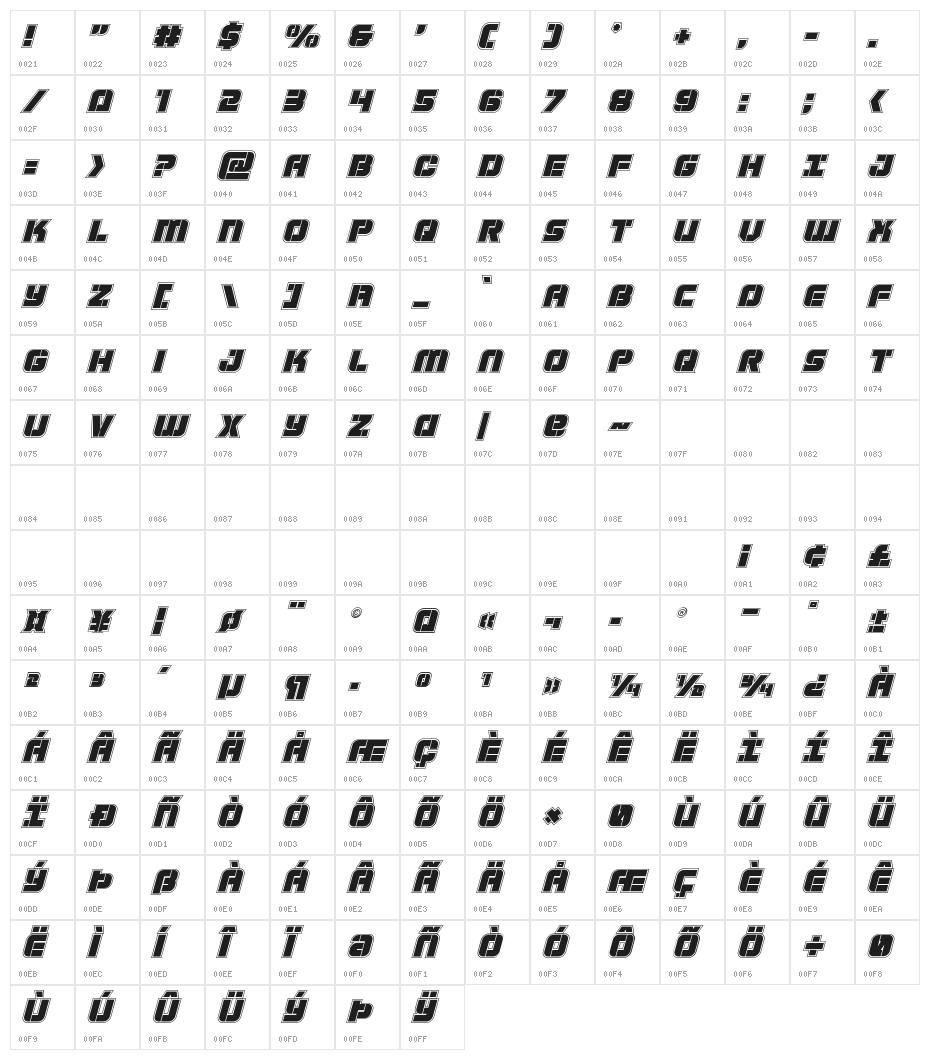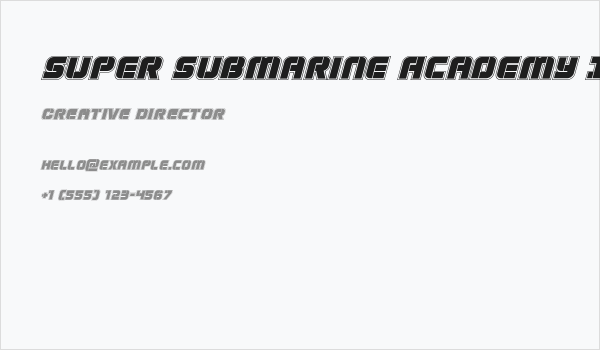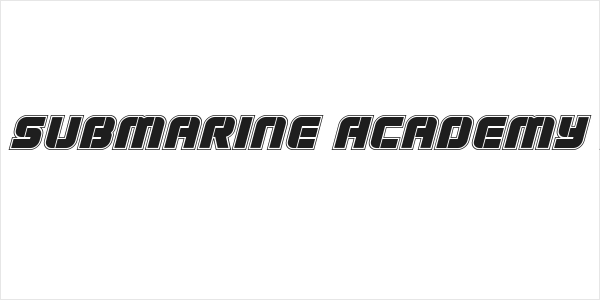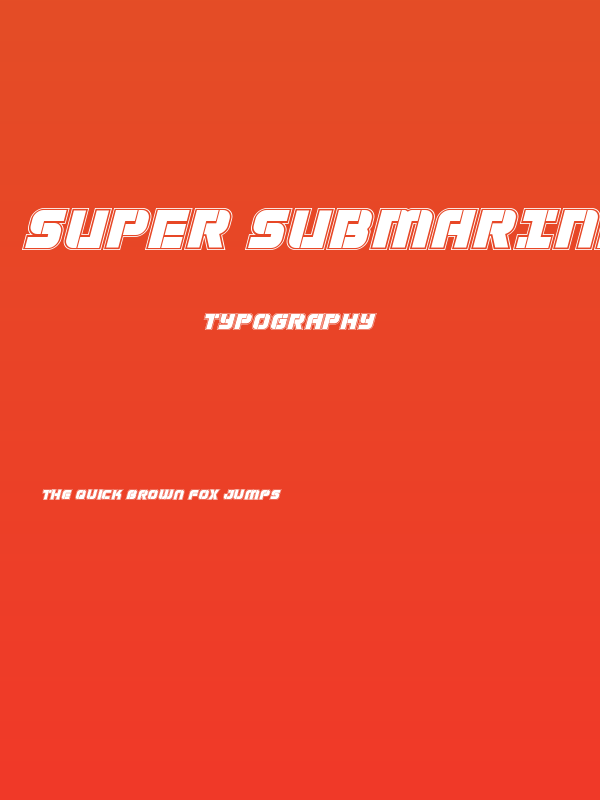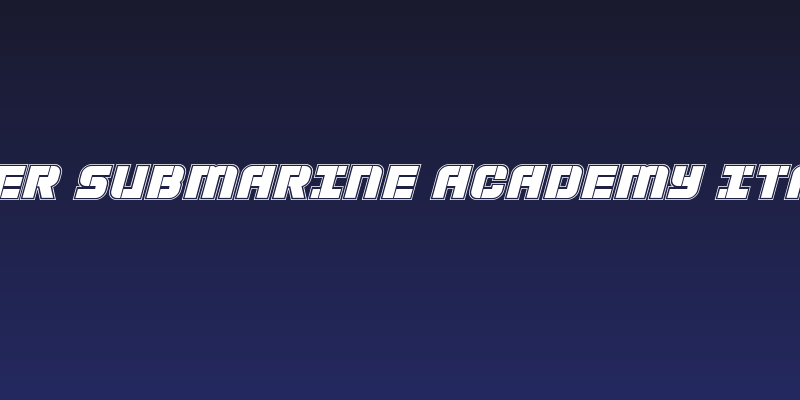
Super Submarine Academy Italic Font
Super Submarine Academy Italic Description
This font features a bold, italicized style with a strong geometric influence. The characters are designed with a distinct slant, giving them a dynamic and forward-moving appearance. The boldness of the strokes is consistent throughout, providing a sense of strength and stability. The font includes both uppercase and lowercase letters, numerals, and a variety of special characters. Its design is reminiscent of futuristic or tech-inspired themes, making it ideal for projects that require a modern and impactful look.
| Proposed Projects | Ideal for tech branding, futuristic posters, video game titles, and dynamic logos. |